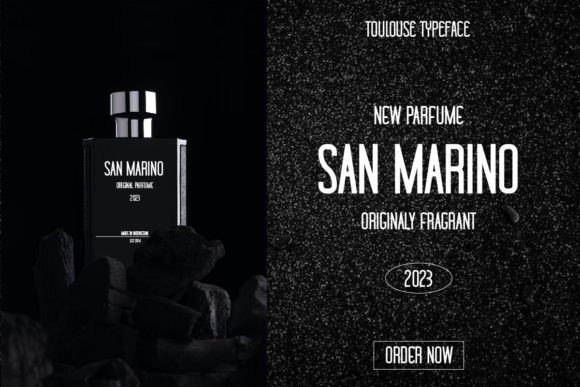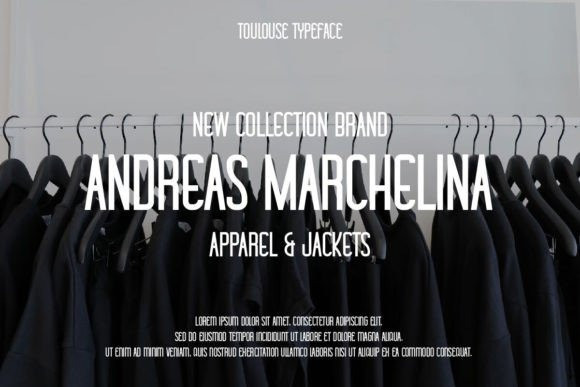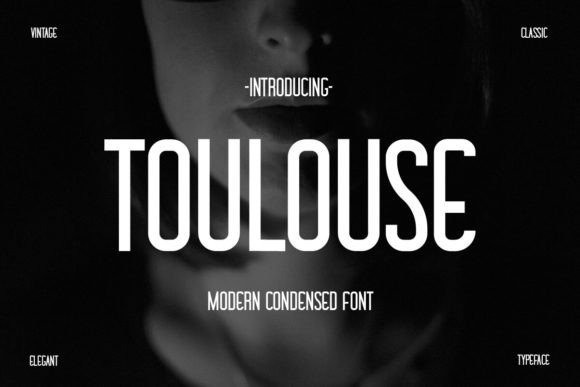
Toulouse Font
Toulouse Font is a condensed font family that includes three styles: regular, aged and thin. Use the regular version where rigor and accuracy of design is required.
The Aged vintage version will help you to make your design more fresh and saucy. Use it for fashion, photography, beauty, sport, urban, card design, wedding invitation, menus, signs, typography design exc.
The Modern looking thin version is perfect for titles on fashion magazines, business cards, flyers, posters and ads.